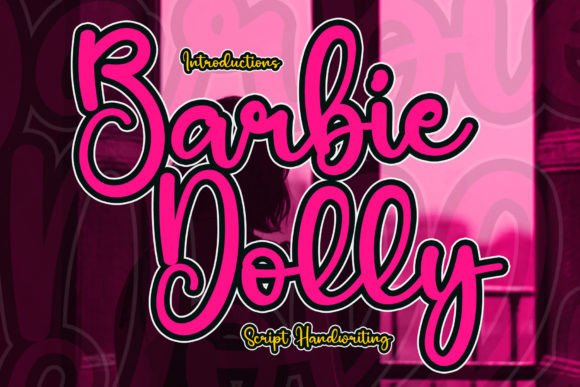
Journey into a world of elegance and whimsy with Barbie Dolly Font, a captivating script font that adds a touch of magic to your creative endeavors. Inspired by the charm and grace of handwritten letters, this font family exudes a sense of playfulness and sophistication, making it the perfect choice for a wide range of projects.
Crafted with passion by YanStudio, Barbie Dolly Font is a visual masterpiece that instantly elevates any design. Its delicate strokes, graceful curves, and expressive characters bring a touch of enchantment to logos, branding projects, labels, photography, watermarks, and special events.
Immerse yourself in the versatility of Barbie Dolly Font, seamlessly adapting to your creative vision. Whether you're designing enchanting Christmas cards, crafting heartfelt invitations, or adding a dash of charm to your branding materials, this font family delivers exceptional results.
With its PUA encoding, Barbie Dolly Font grants you effortless access to a treasure trove of glyphs and swashes, empowering you to unleash your creativity and add a layer of intricate detail to your designs. Open up a world of possibilities and let your imagination soar.
Seize the opportunity to transform your creative projects into captivating works of art with Barbie Dolly Font. Let its enchanting script add a touch of magic to your designs, leaving a lasting impression on your audience. Embark on a creative journey where elegance and playfulness intertwine, creating designs that captivate and inspire.